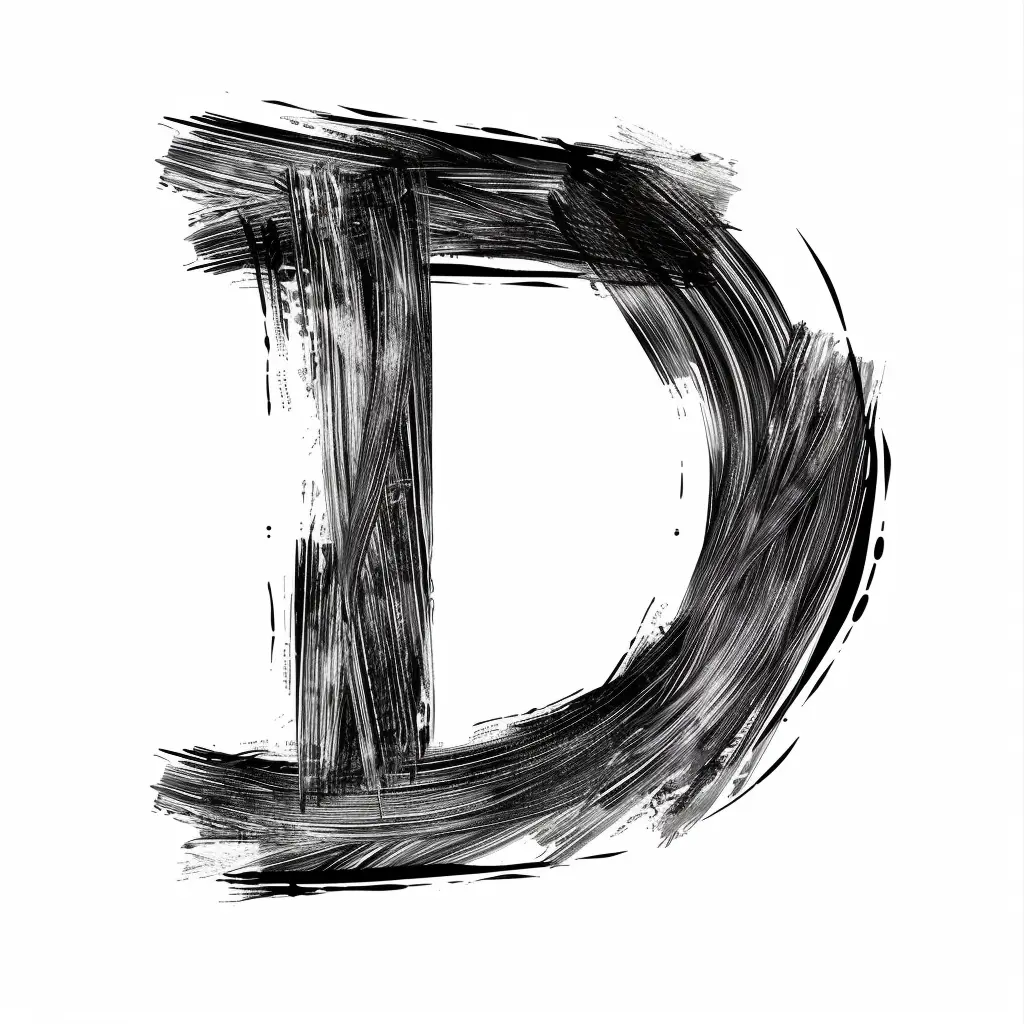
The image features a stylized letter "D" rendered in a bold, brushstroke-inspired design. The letter is composed of thick, textured black strokes with visible layering and dynamic, sweeping lines, set against a plain white background. The artistic style emphasizes a raw, expressive aesthetic, with varying stroke thickness and subtle splatters adding depth and movement.